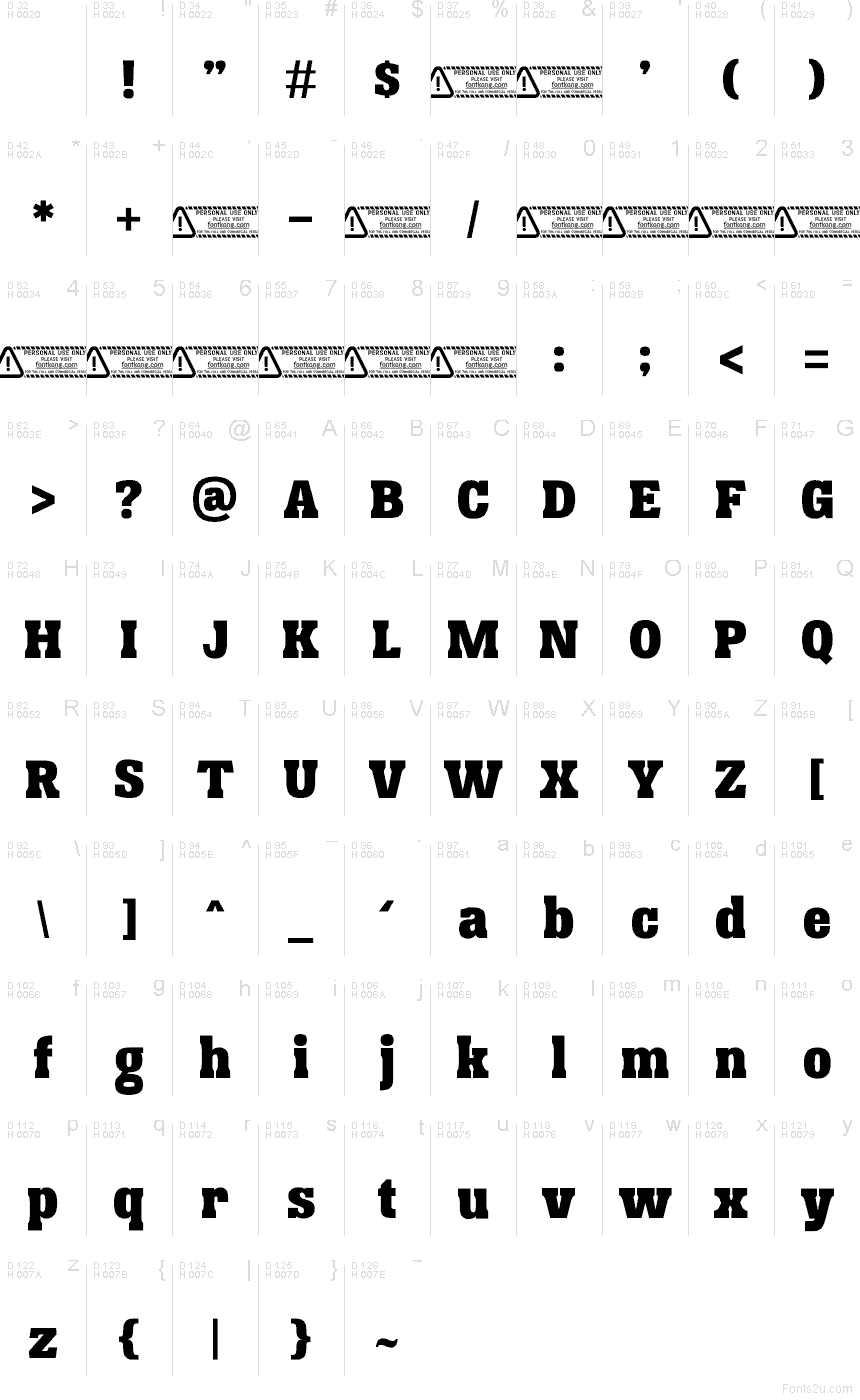
Betones font by Kong Font is a free serif typeface that hits like a block of ink on the page. Its wide, brick-solid letterforms and chunky slabs feel almost architectural, giving every word real weight and presence. The tight spacing and even rhythm keep this heavy serif from feeling clumsy, so you get bold impact without losing legibility, even at a distance.
Using Betones, this free font shines on posters, sports branding, strong packaging, bold signage, album covers, and punchy editorial headlines. It thrives when you set it big and let those dark shapes do the talking, then balance it with a clean light sans serif for smaller supporting text. Reach for Betones whenever you need your message to land with force and be remembered.